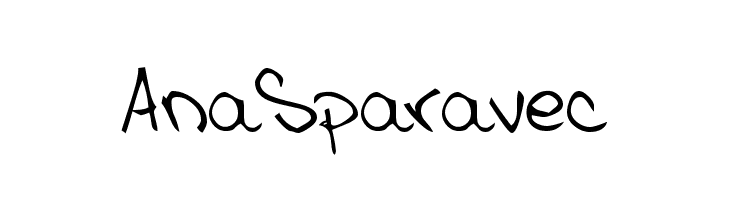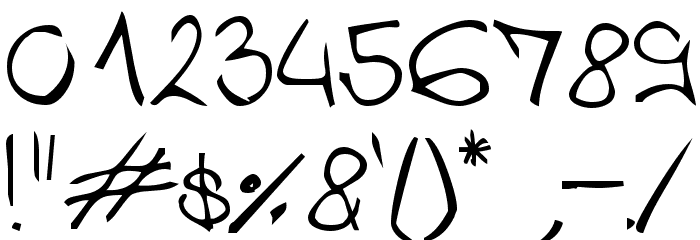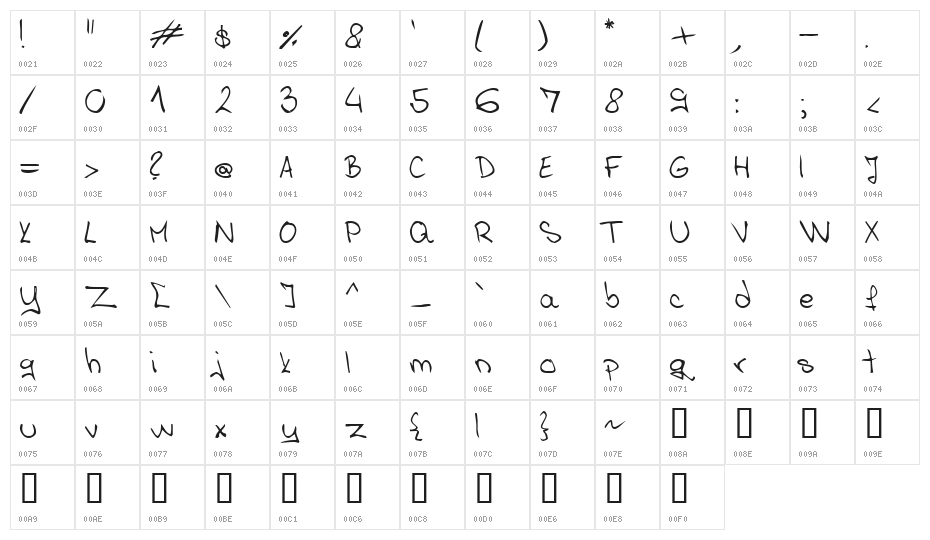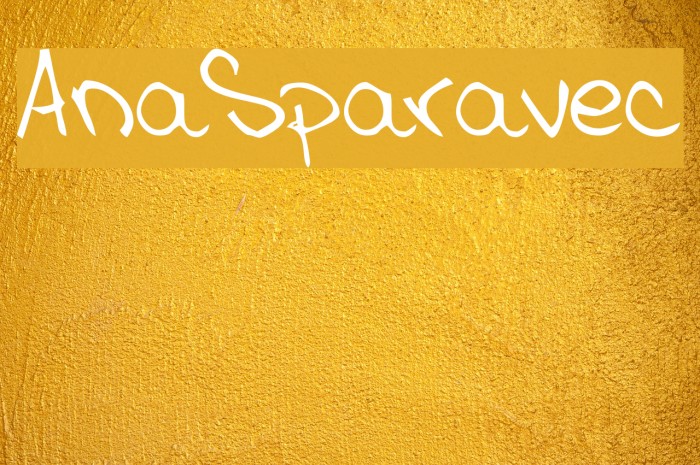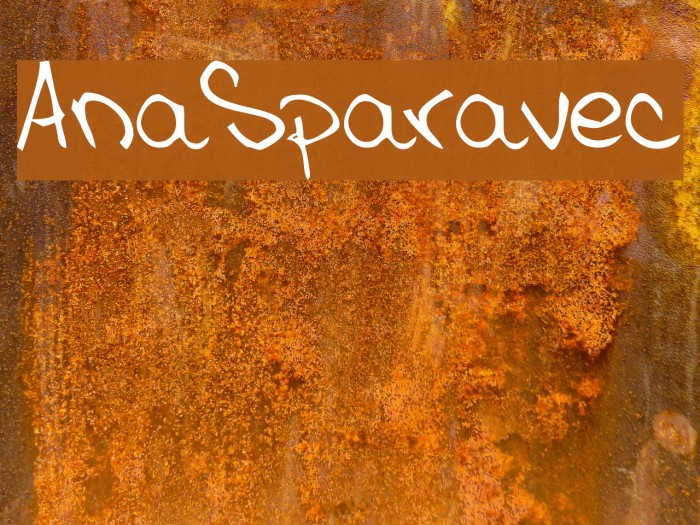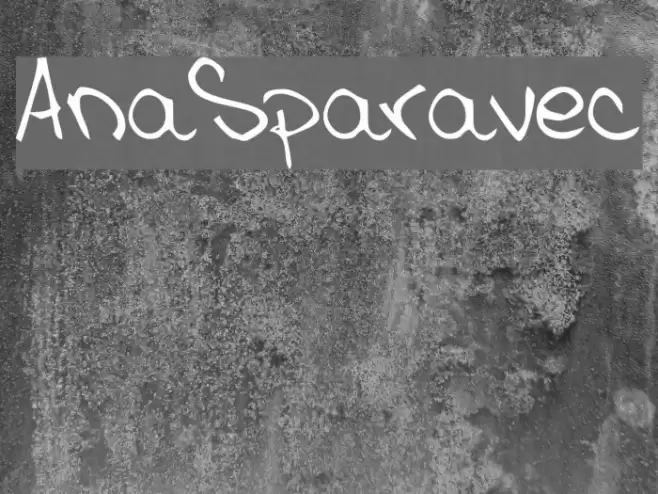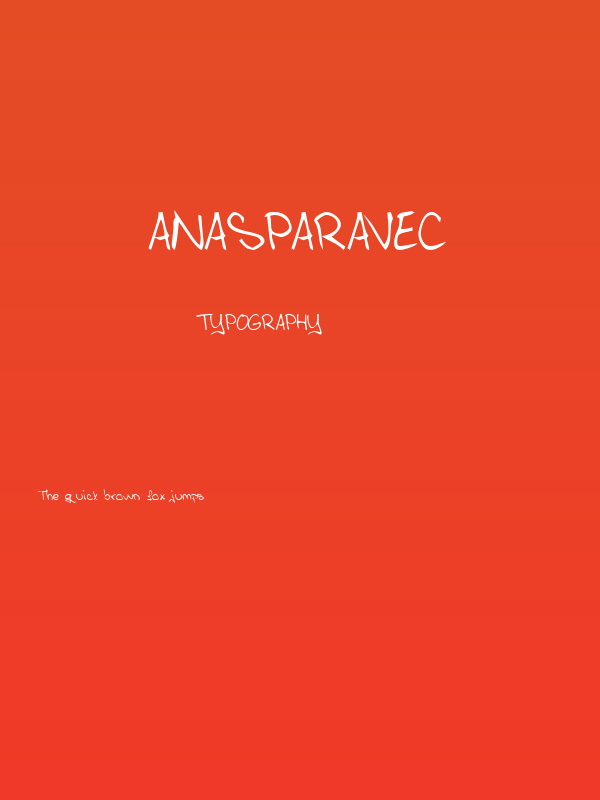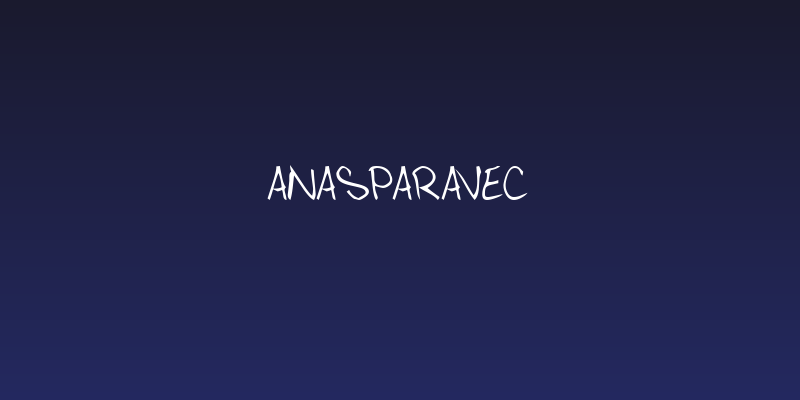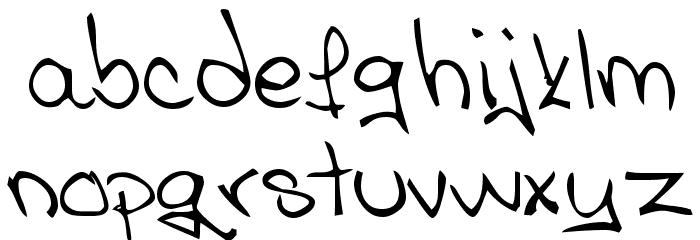
AnaSparavec Font
AnaSparavec Description
This font features a playful and dynamic handwritten style, characterized by its irregular and whimsical letterforms. The uppercase and lowercase letters exhibit a consistent flow, with each character having a unique flair that adds to the font's charm. The numerals and special characters maintain this lively aesthetic, making the font suitable for creative and informal applications. The strokes are moderately thick, providing a bold appearance without compromising readability. The overall design is casual and expressive, perfect for projects that require a personal touch.
| Proposed Projects | Ideal for greeting cards, children's books, creative posters, and playful branding. |